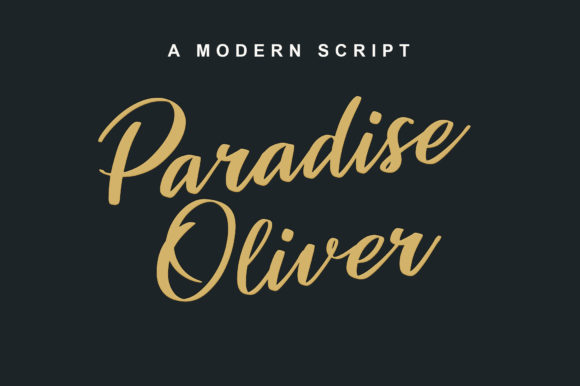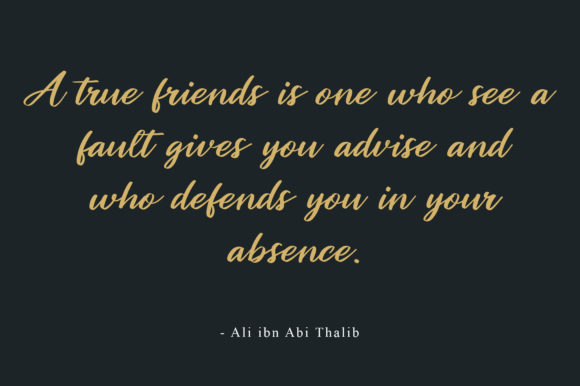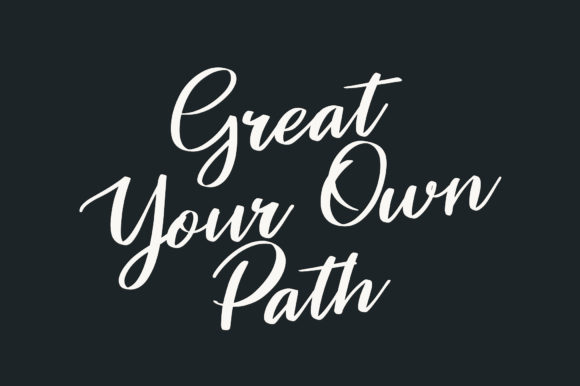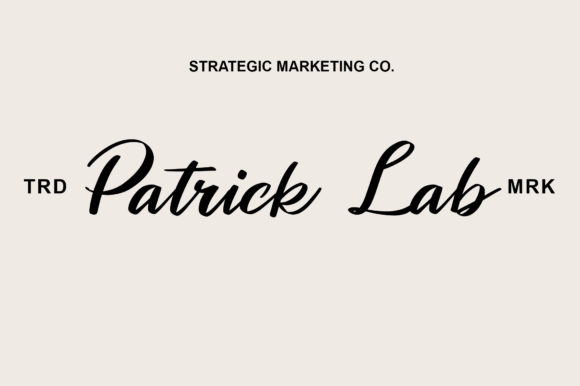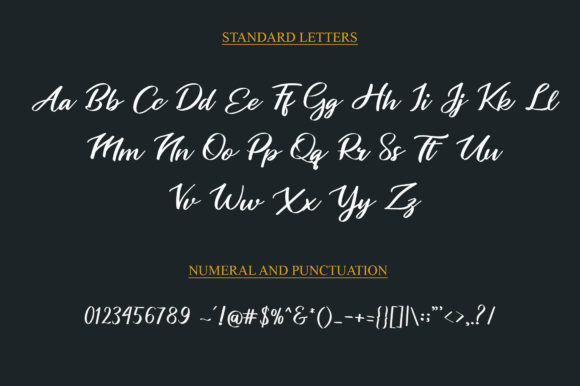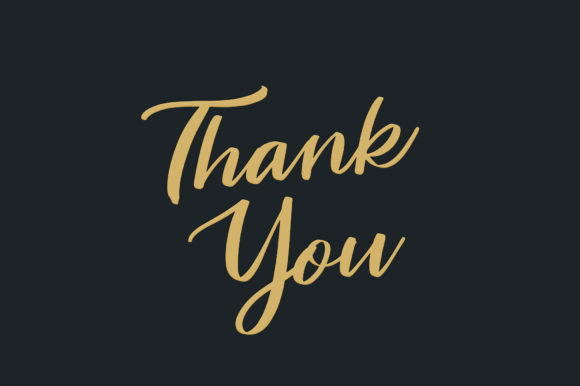
Paradise Oliver Font
About Paradise Oliver Font
Paradise Oliver is a lovely script font that exudes charm and playfulness. With its charming and playful characters that dance along the baseline, this font adds a delightful touch to your most creative ideas.
The flowing and dynamic nature of Paradise Oliver brings a sense of movement and liveliness to your designs. Whether you’re working on invitations, branding materials, social media posts, or any other project that calls for a touch of whimsy, this font will make your designs stand out.
Embrace Paradise Oliver confidently and let it bring your creative ideas to life. Its charming and playful characters add a unique flair, capturing attention and making a lasting impression. Notice how this font enhances your designs and adds a sense of joy and excitement to your creations.
Add Paradise Oliver to your projects and experience how it makes them stand out. Its delightful characters and flowing baseline create a visually captivating effect, making your designs more engaging and memorable. Let Paradise Oliver be the font that adds a touch of charm and playfulness to your most creative ideas.